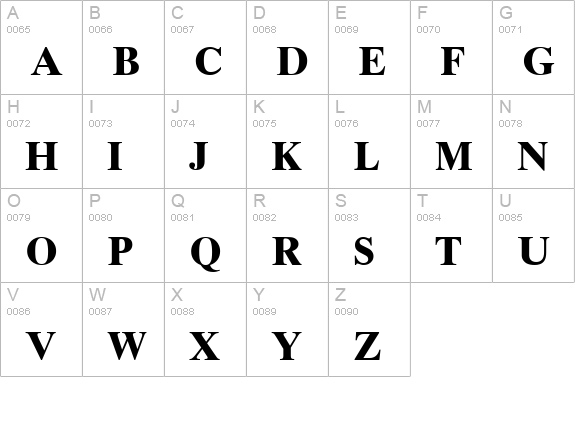
Greco Ten SSi Bold is a strong, high-contrast variant in the Greco typeface family \xE2\x80\x94 well suited to headlines, attention-grabbing titles, and strong calls-to-action.
Greco Ten SSi Bold is a modern and sleek font that exudes strength and confidence. With its bold and stylish design, this font is perfect for making a bold statement in your designs. The clean lines and sharp edges of Greco Ten SSi Bold give it a professional and sophisticated look that is sure to grab attention. What's even better is that Greco Ten SSi Bold is available for free download at FontsMarket.com. This means you can easily access this high-quality font and use it in your projects without any cost. Whether you're working on a logo, poster, or any other design project, Greco Ten SSi Bold will add a touch of elegance and flair to your work. Download this font today and elevate your designs to the next level!